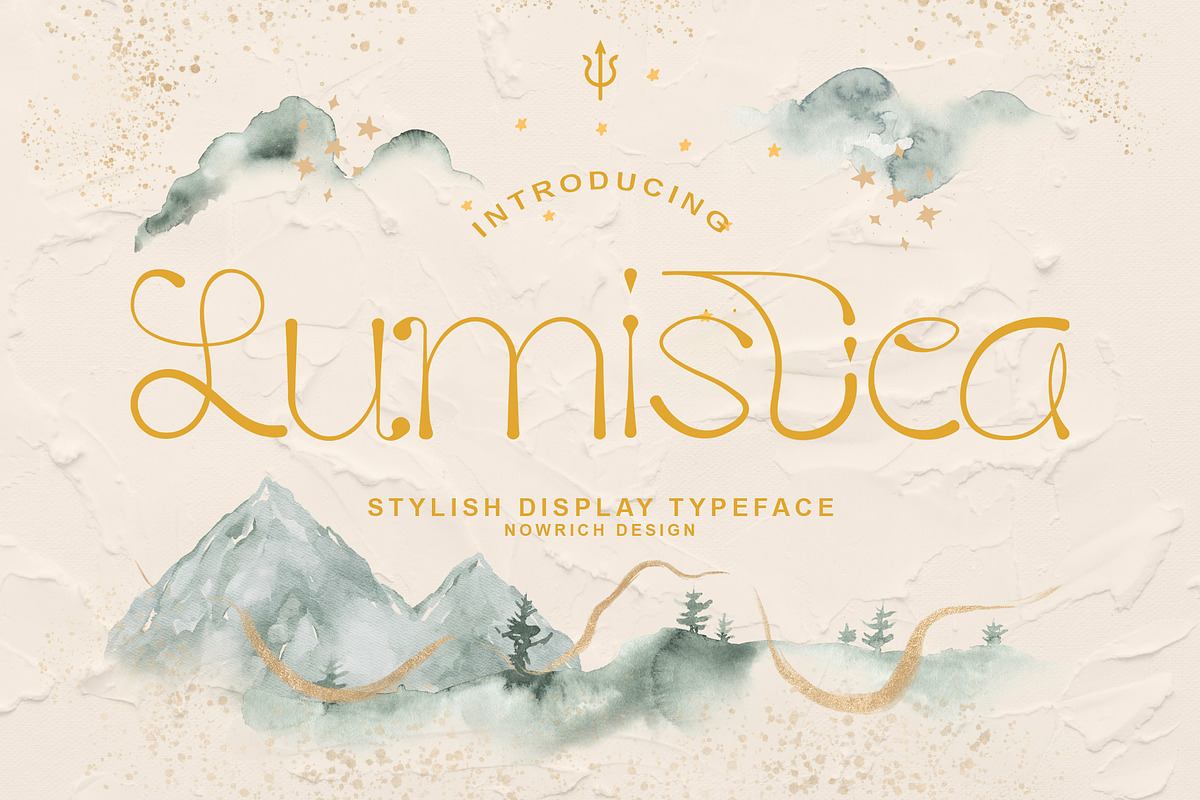
Lumistica Script Display Typeface Free Download
Lumistica Script Display Typeface Free Download is an elegant and artistic script font designed to bring sophistication and flair to your designs. With its smooth curves, bold strokes, and artistic flourishes, Lumistica is perfect for logos, wedding invitations, posters, branding, and high-end packaging.
This display font combines the beauty of traditional calligraphy with a modern twist, making it ideal for any project that needs a polished yet creative look. Whether you’re creating an upscale event invitation or designing a stylish brand identity, Lumistica Script Display Typeface Free Download adds charm and elegance to every word.
Its versatility makes it suitable for both digital and print formats, offering a touch of class to all your creative endeavors.